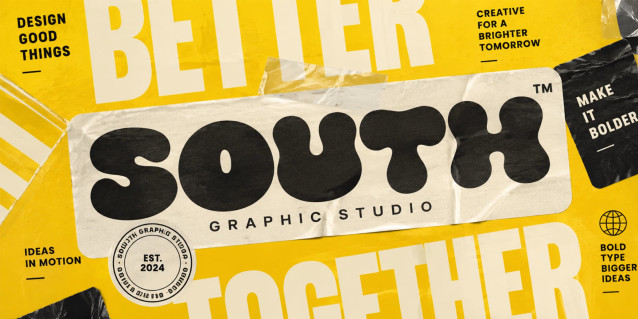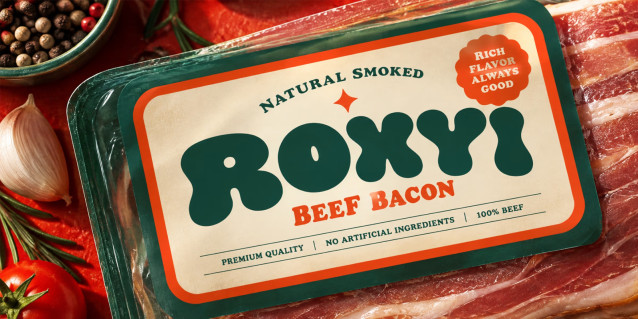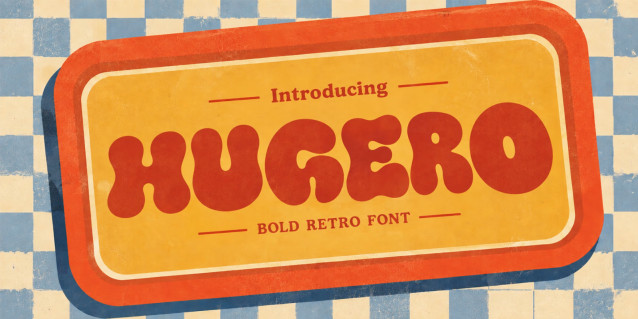
HUGERO — Bold Retro Display Font
HUGERO is a bold, playful retro display font with chunky, soft, and organic letterforms that instantly bring personality to any design. Its unique bubbly shapes create a strong visual presence while keeping the overall look fun, friendly, and highly memorable.
Designed to become the hero of your typography, MUGELO works beautifully for branding, packaging, posters, food & beverage designs, apparel, labels, logos, and eye-catching social media graphics.